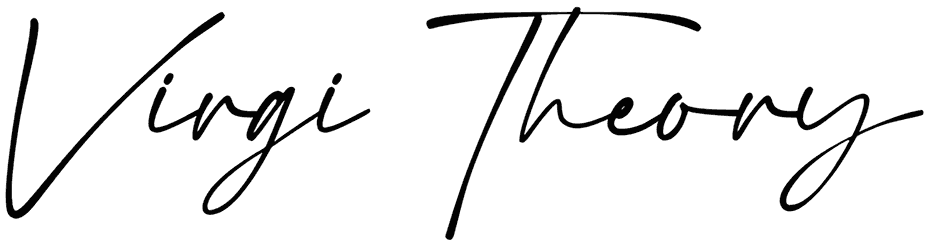
Virgi Theory Font
This time, you can give an elegant and nice face to your modern design with this illegible signature font. Virgi Theory, with its delicate and casual form, is a calligraphy font that would be harmonized with various subjects. With an almost full backup of the characters, Virgi Theory is a unique item to adorn your creative designs, from business cards to social media posts.